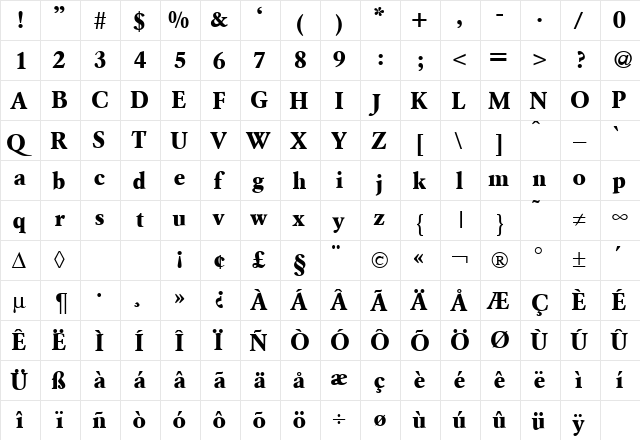
ClassicGaramondHeavy Regular
Design Context for ClassicGaramondHeavy Typeface
ClassicGaramondHeavy wears its vintage influences proudly, with letterforms that recall mid-century signage, classic packaging, and nostalgia-driven design.
Font Pairing: Combine ClassicGaramondHeavy with a simple slab or neutral sans — period-accurate companions reinforce the vintage feel without competing for attention.
Pro Tip: Use ClassicGaramondHeavy for headlines and pull quotes rather than body copy — its personality is best appreciated in short, focused bursts.